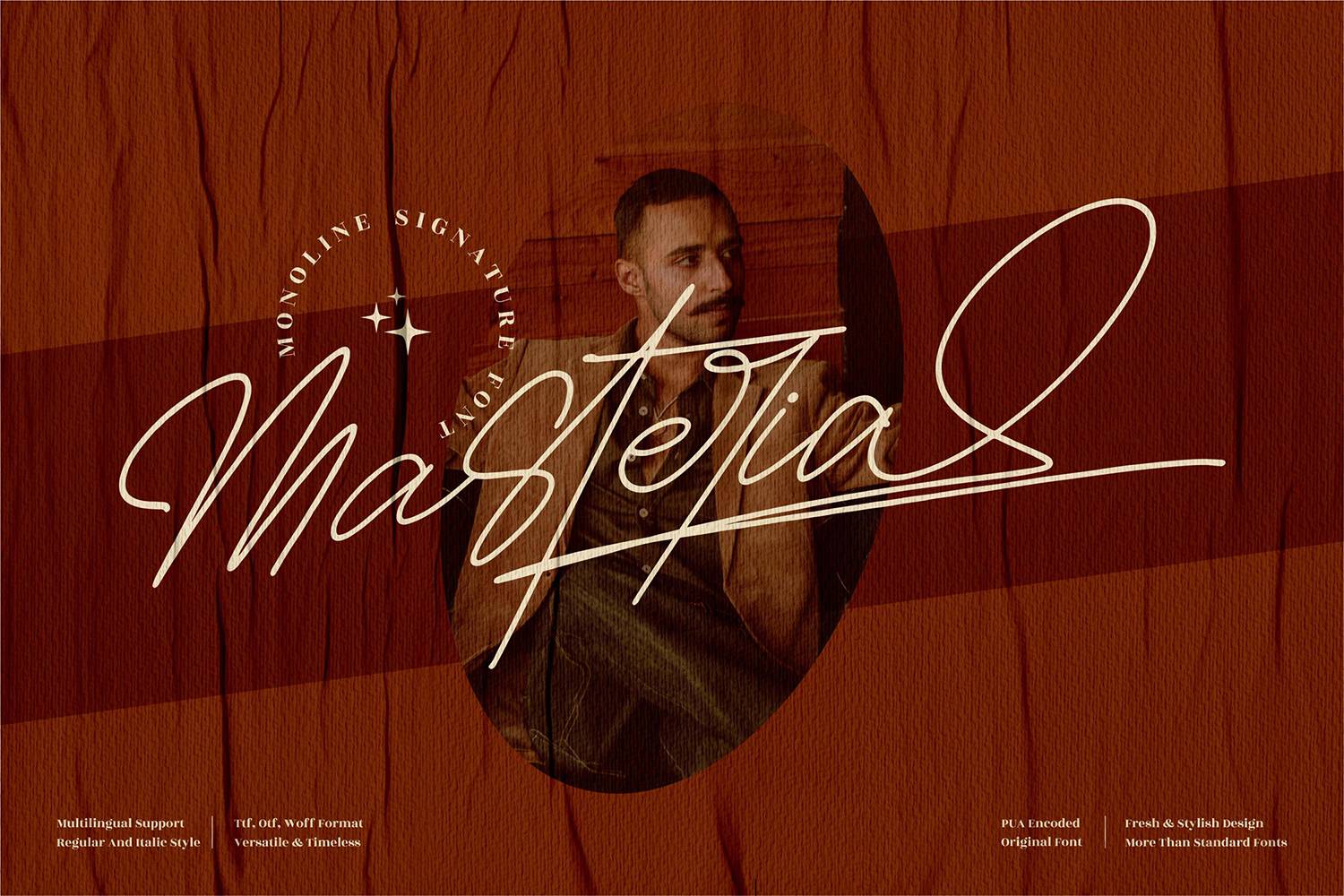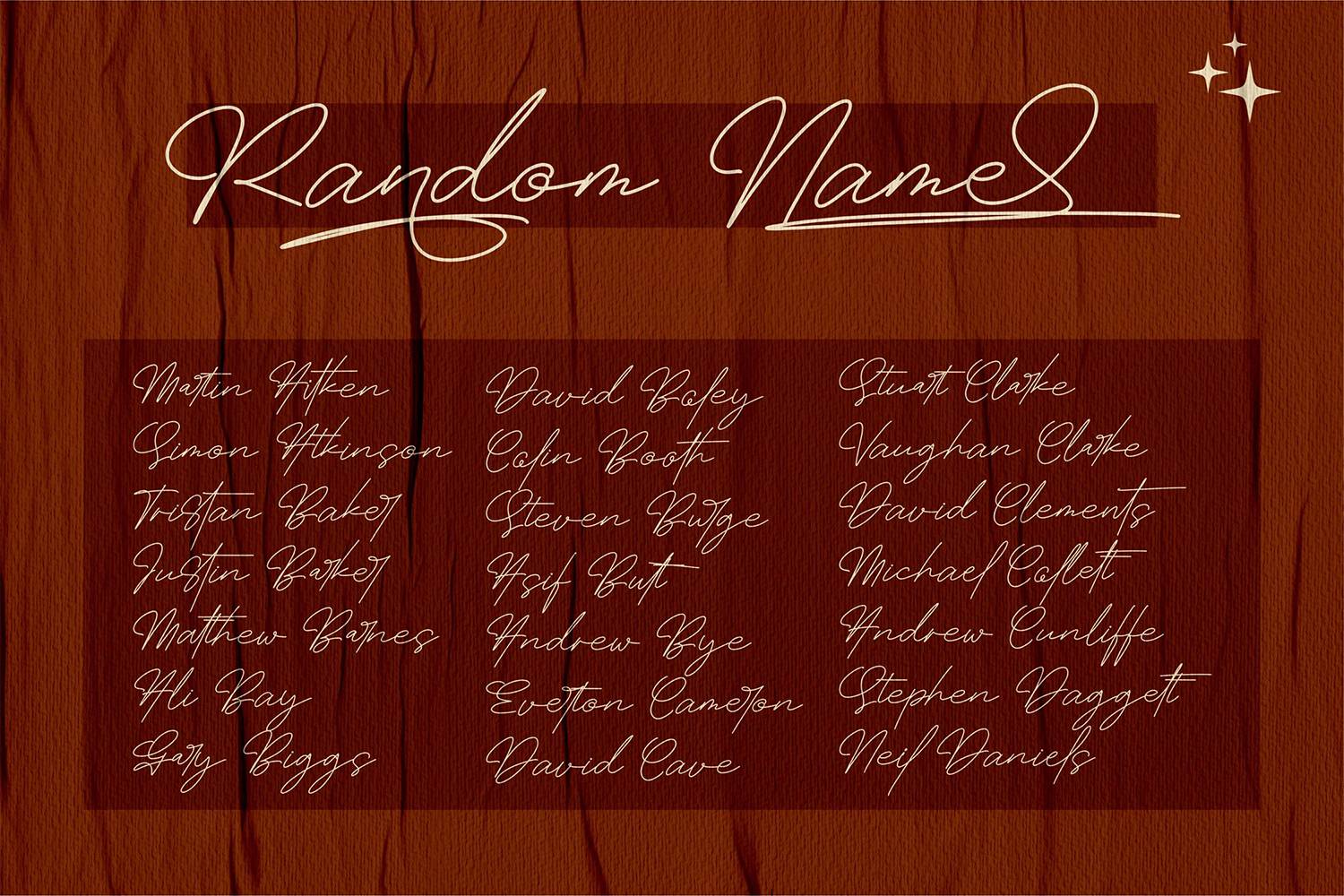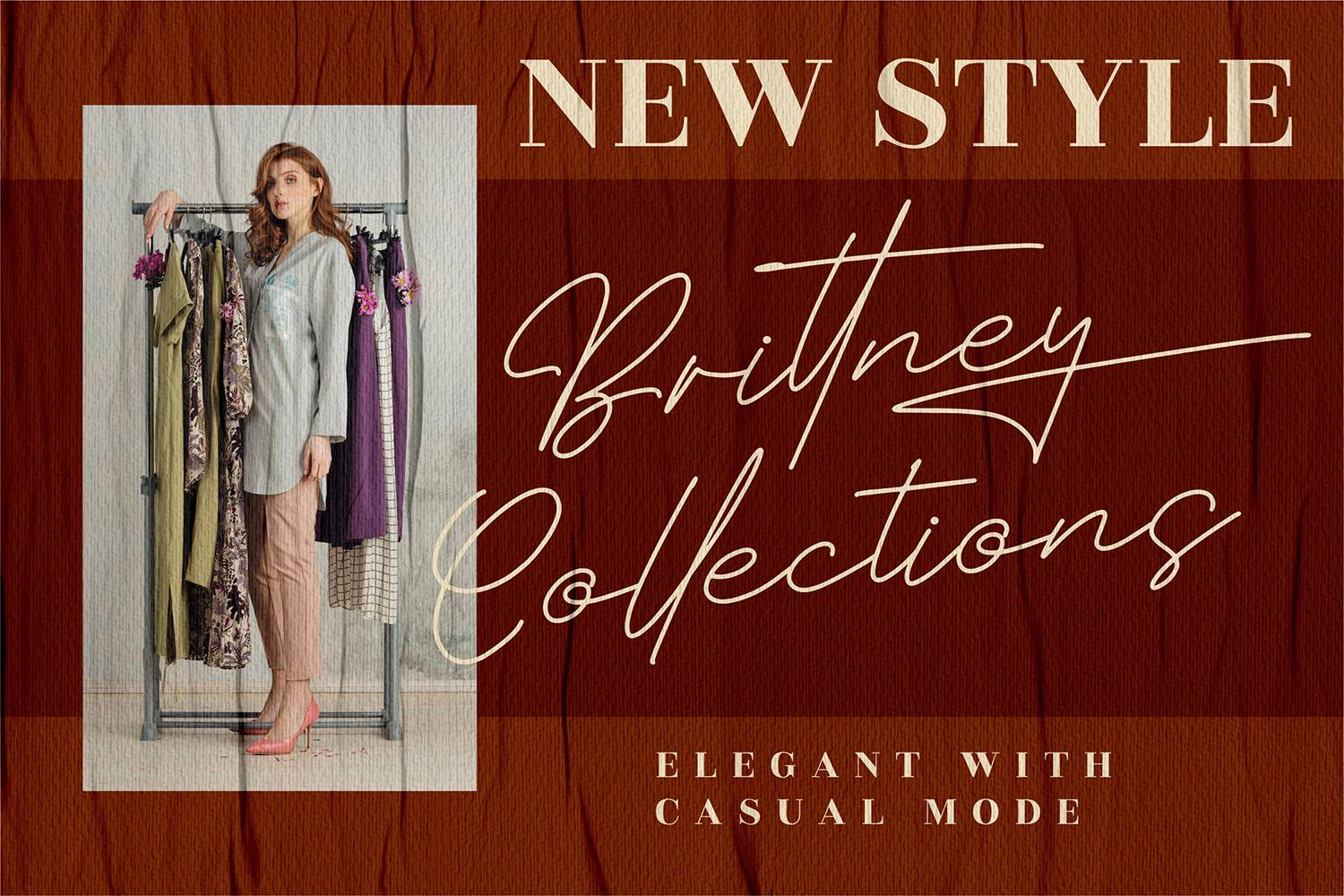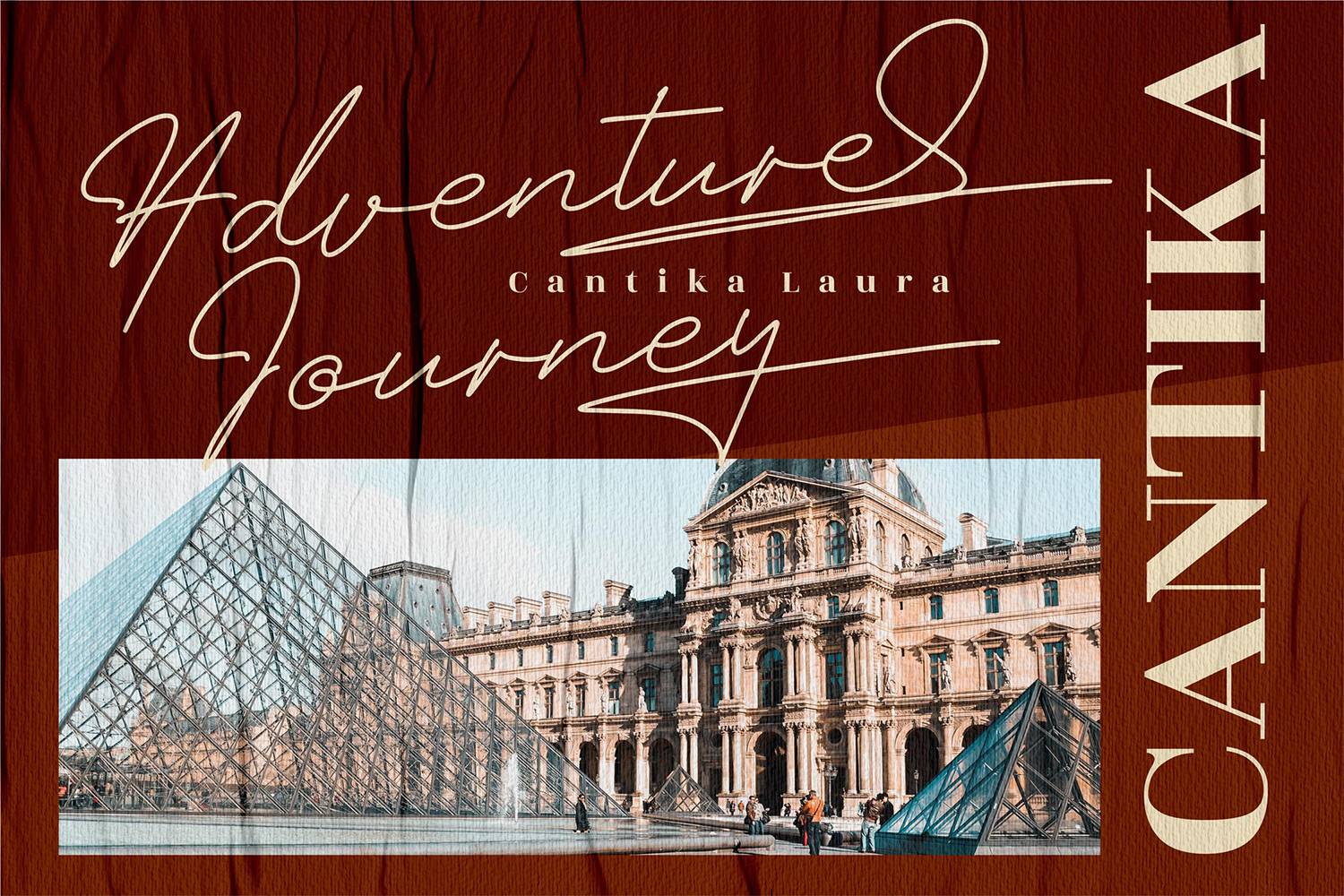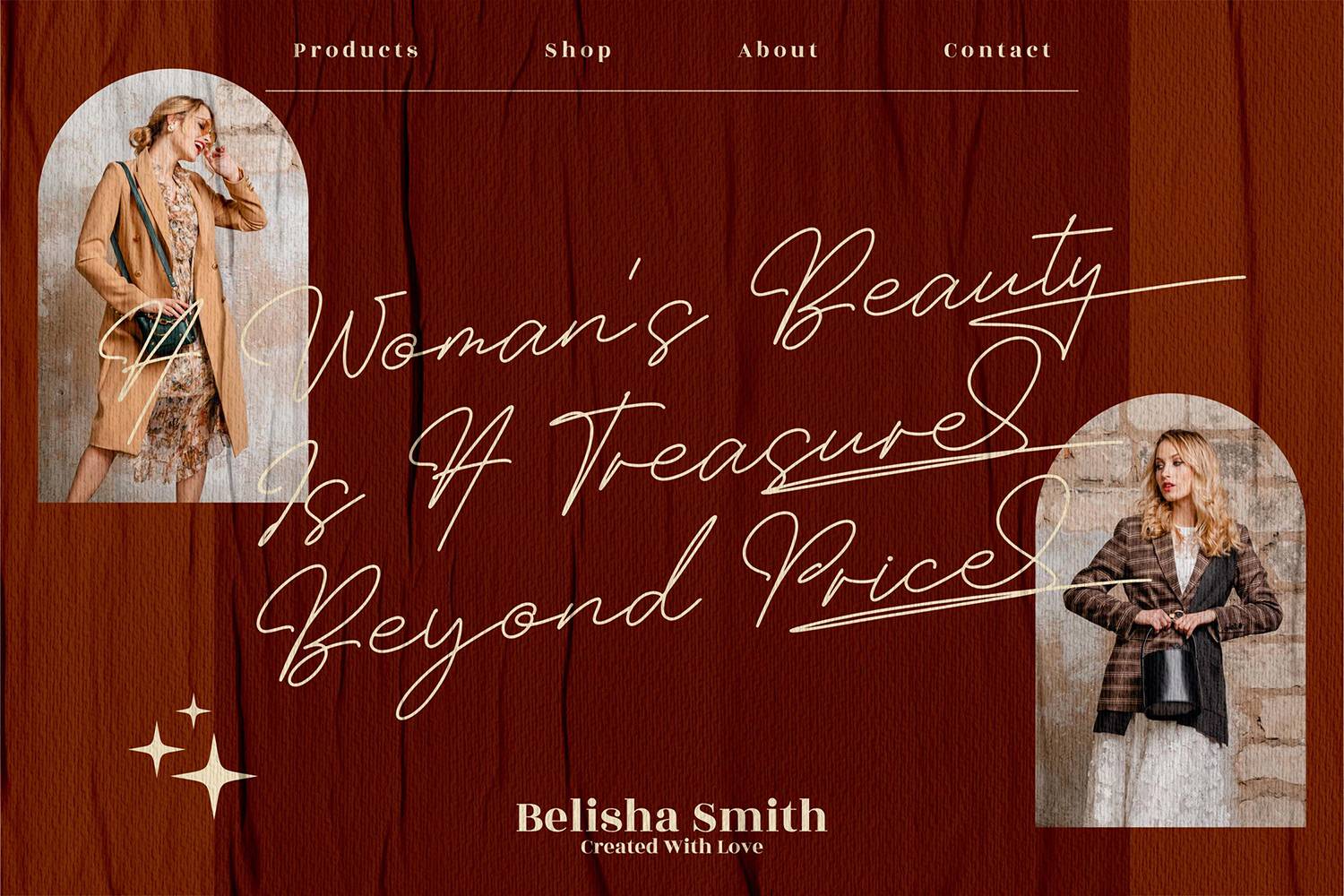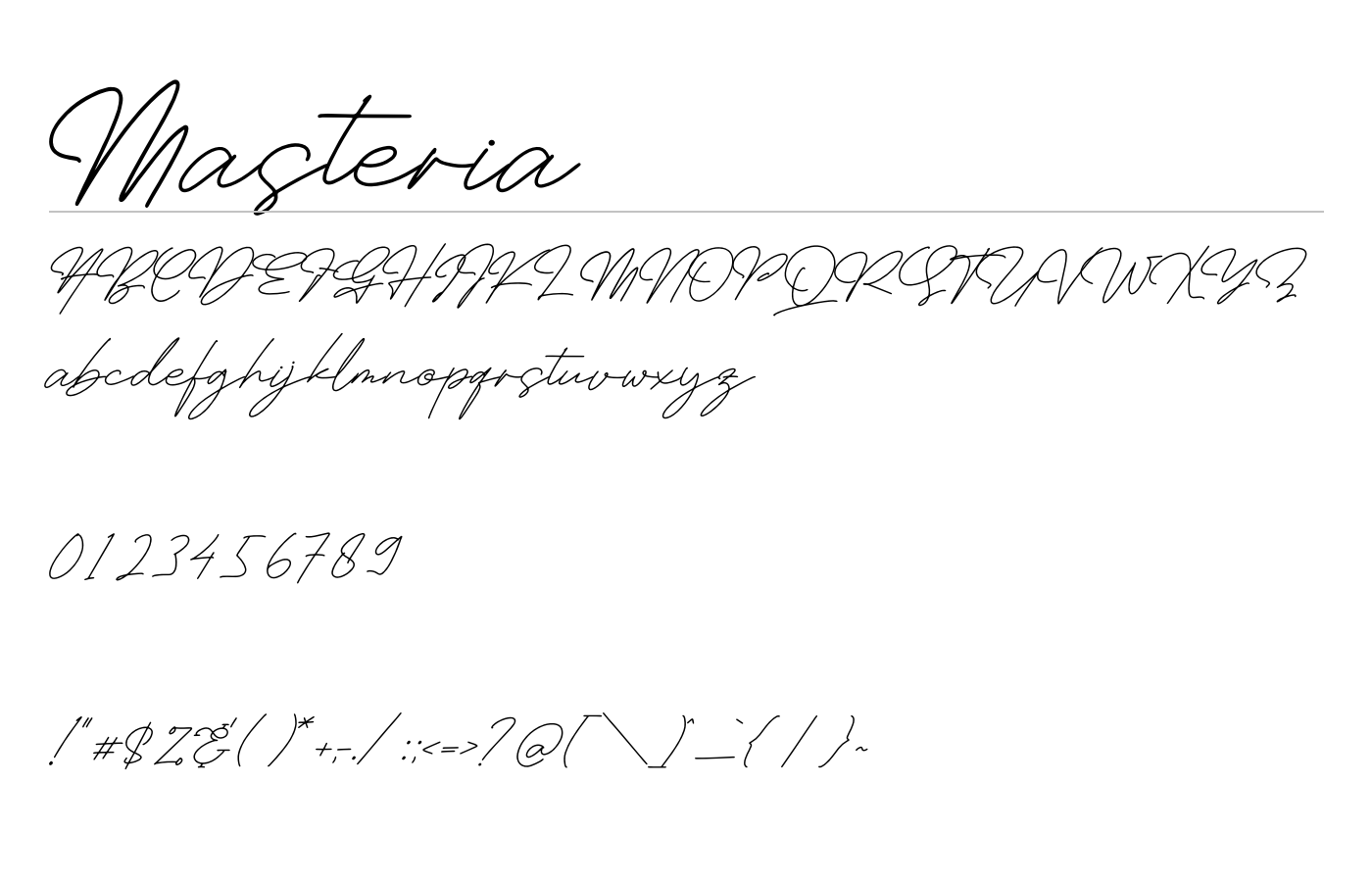
Masteria is an elegant, handwritten script font with a delicate, flowing style that mimics natural cursive writing. Its thin, graceful strokes and slight slant create a refined and personal feel, making it perfect for invitations, branding, and creative design projects that seek a sophisticated yet approachable touch. This font’s airy, stylish letterforms work beautifully for headlines or highlights where a subtle, artistic flair is desired.
Masteria Font
About Masteria Font